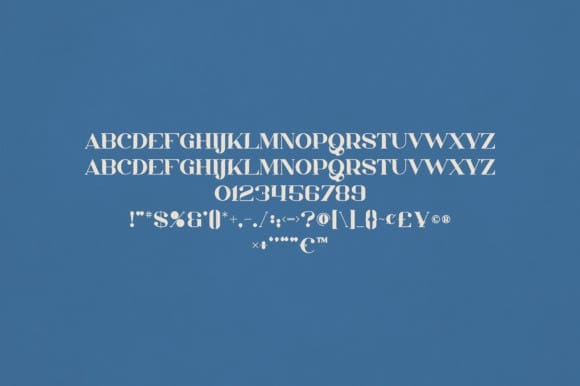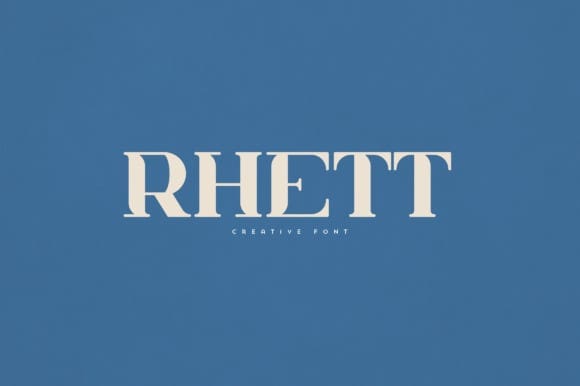
Rhett Font
Rhett Font is an elegant and versatile font that will make your typography truly unique! It will enchant every logo, branding, headline, or plain text!